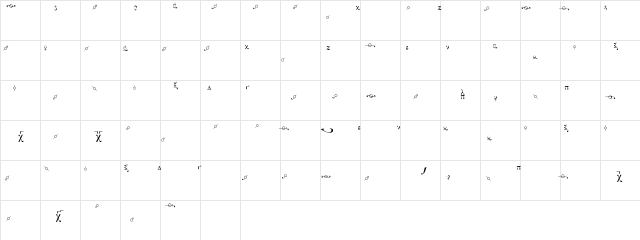
ED Fthora Regular
Design Context for ED Fthora Typeface
ED Fthora is a composed and adaptable typeface that performs quietly and consistently across a wide range of design contexts.